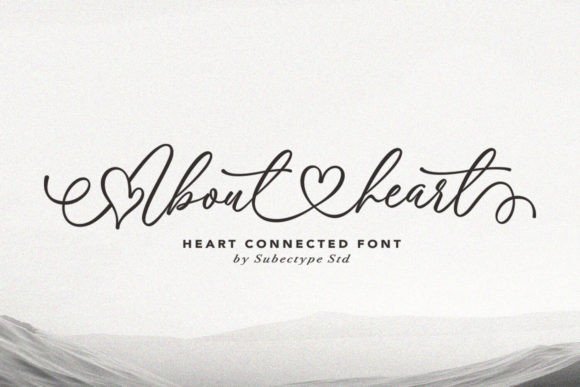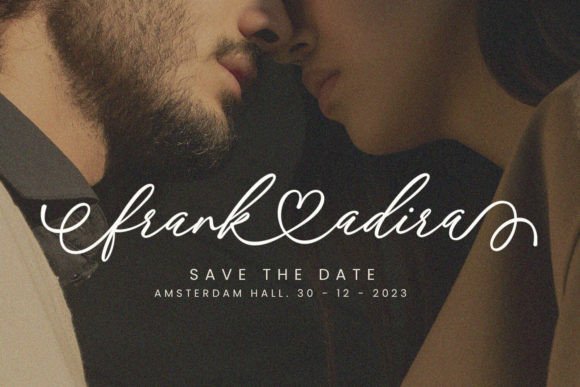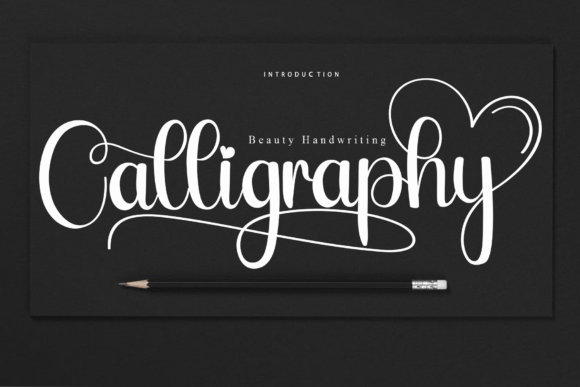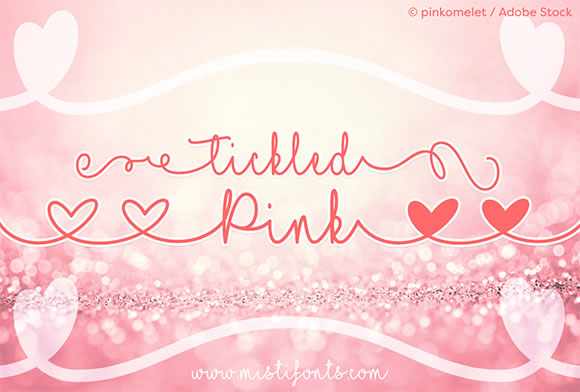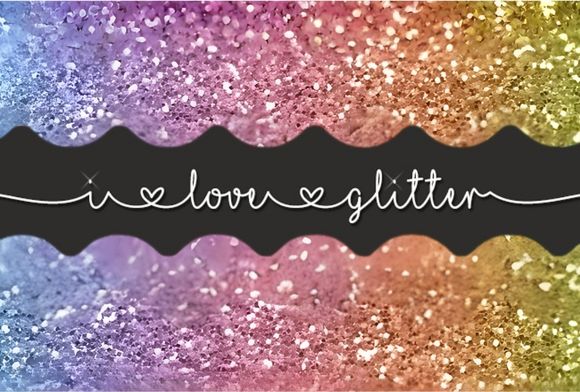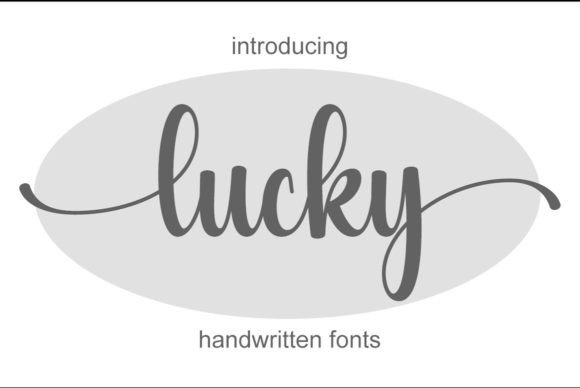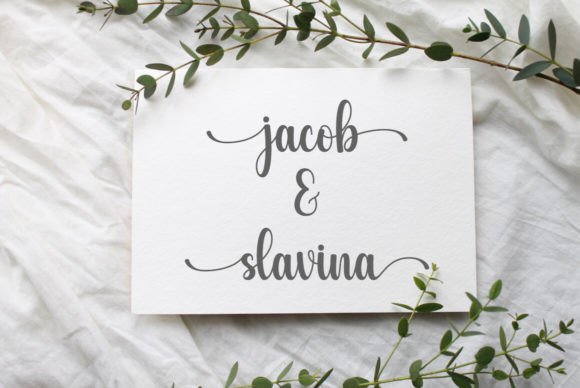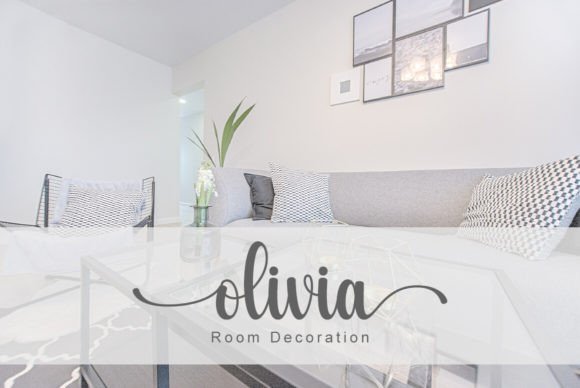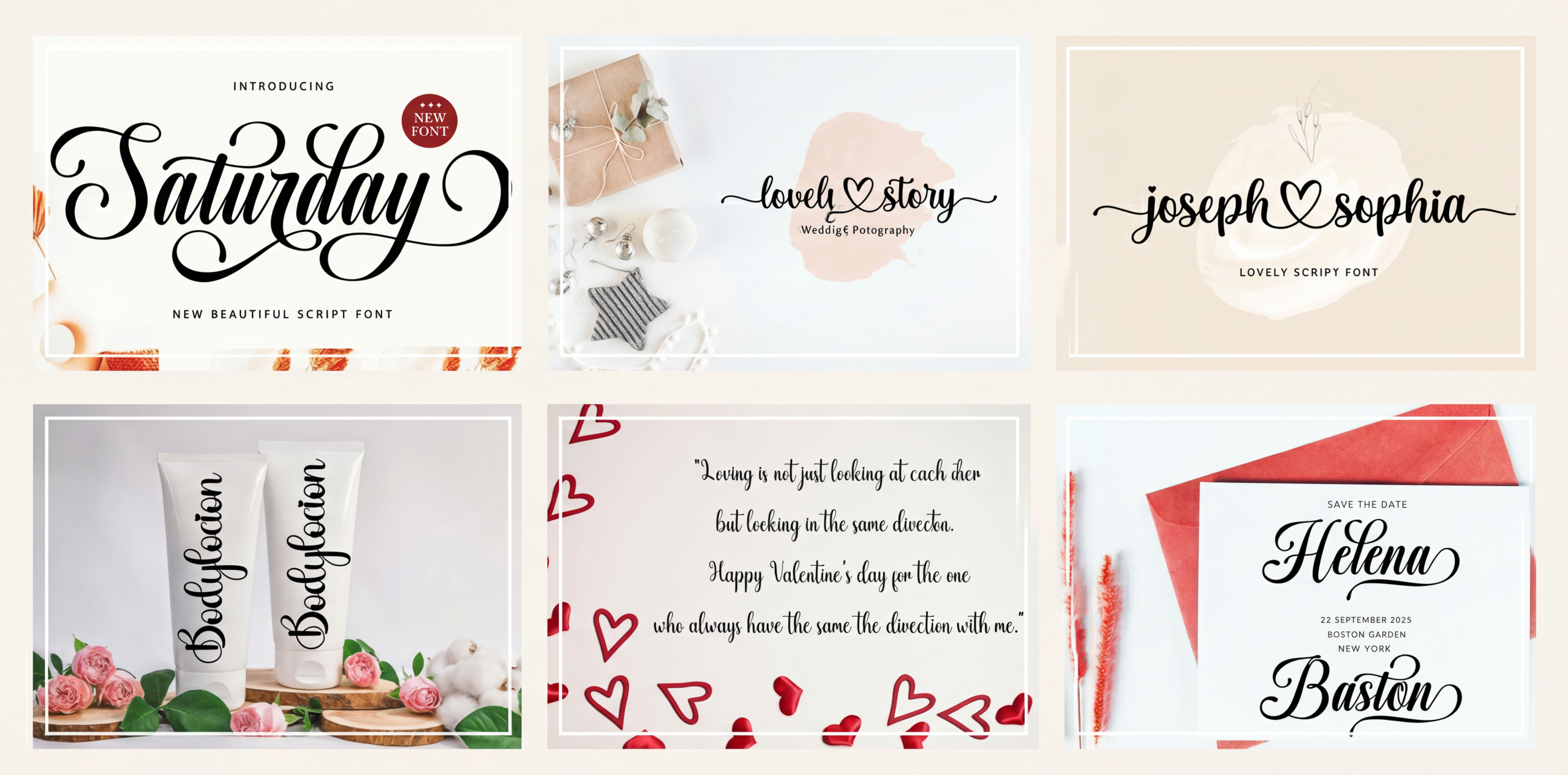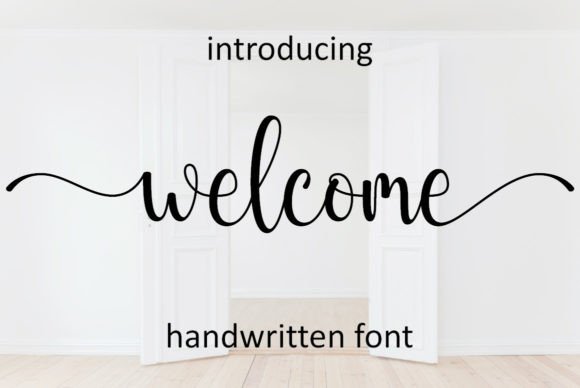
The Best 10 Romantic Script Fonts for Valentine’s Day & Beyond
The right font can turn a simple message into a heartfelt one. For special moments like Valentine’s Day or weddings, you need a font with personality and romance. That’s the magic of script fonts. Their flowing, handwritten style adds an intimate touch. In this article, we explore a collection of beautiful romantic script fonts, each perfect for making your designs unforgettable and full of charm.
1. Heart Script Font
I use the “About Heart” font for my favorite projects. It’s a chic calligraphy font with a unique, heart-connected style that adds a beautiful touch of love. I use its distinct and timeless style to create spectacular designs, especially for t-shirts, mugs, and greeting cards.
2. I Heart You Script Font
I use the “I Heart You” font for its fun, cute vibe. It’s a clean, single-line handwritten font with a charming heart swash that adds a romantic touch to my designs, making them feel both personal and modern.
My favorite feature is the heart swash, which is perfect for joining names, like on the wedding invitation I made for “Kayla & Charly.” I also use it for personalized gifts, such as the custom tumblers I designed for “Stephanie,” “Monica,” and “Christina.” Its versatility makes it my go-to for t-shirts, stickers, and crafting—anything needing a simple, lovely, handwritten feel.
3. Joseph Sophia Font
When my designs need a charming and elegant feel, I use the “Joseph Sophia” script font. Its smooth lines and varying baseline create a lovely handwritten touch that’s perfect for logos, like for “Lovely Story Wedding Photography,” or for heartfelt cards, such as “Thank You” notes. Because it’s PUA encoded, I can easily access all its gorgeous glyphs and swashes to make any design special.
4. Calligraphy Script Font
I use the “Calligraphy” font when I need a design to feel sweet, elegant, and casual all at once. Its gentle, cursive style adds a joyful and romantic touch to my projects. It’s perfect for branding, like on the “Bodylocion” packaging I designed, and looks gorgeous on wedding invitations, such as the “Save The Date” for “Tonyson & Jihania.” It’s my go-to for a fancy, yet personal, handwritten feel.
5. Welcome Script Font
For my most stylish and elegant designs, I use the “Welcome” script font. Its handwritten touch looks stunning on wedding invitations, like the set I created for “Eleanor & James,” and brings sophistication to business cards and logos. Since the font is PUA encoded, I can easily use all the gorgeous glyphs and alternates, which allows me to add a unique, custom look to thank you cards, quotes, and more.
6. Lucky Script Font
When my designs need an elegant and delicate touch, I use the “Lucky” handwritten script font. It’s my go-to for sophisticated branding for boutiques and for creating beautiful wedding invitations. Since this font is PUA encoded, I can easily access all the alternate glyphs, which allows me to give a unique and custom feel to everything from social media posts to product designs.
7. Handwriting Bundle Font
I unleash my creativity with the Cute Handwriting Font Bundle, which gives me 12 exclusive fonts, including charming script font styles. I use them to add a personal touch to all my projects, like when I’m crafting custom stickers for my journal or designing unique social media posts. This bundle is perfect for giving my crafts and digital content a special, handwritten feel you can’t find anywhere else.
8. Glitter script Font
When I want my craft projects to stand out with a touch of sparkle, I use the “MF ‘I Love Glitter’” script font. Its unique and whimsical style is my secret weapon for designing beautiful invitations, custom t-shirts, and stunning scrapbook pages. I find it’s especially perfect for my Cricut projects, like making printable cards and shadow boxes, elevating my crafting game every time.
9. Saturday Script Font
When my project needs a classic and elegant look, I choose the “Saturday” script font. Its beautiful character variations and fancy letter connections give it a clean, feminine, and easy-to-read style. I find it’s perfect for formal designs, like creating sophisticated restaurant menus, fashion logos, or beautiful wedding invitations. This font adds a modern yet timeless touch to any of my branding or advertising projects.
10. Winter Script Font
A great script font is more than just letters; it’s a powerful creative tool. From sweet and simple to sophisticated and elegant, each font we’ve explored adds emotion and a personal touch to your work. Whether you’re crafting a Valentine’s card, a wedding invitation, or a logo with heart, choose one of these romantic script fonts to make your message shine with unique warmth and style.